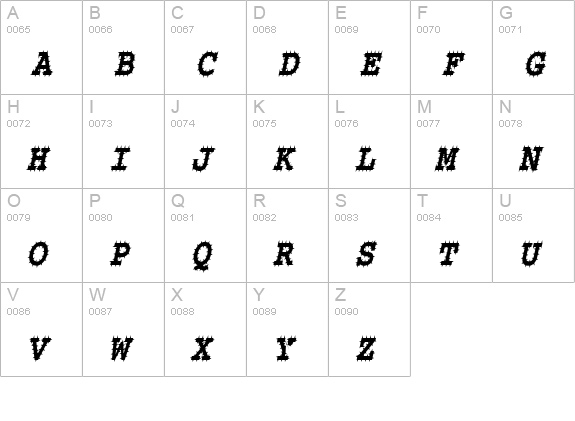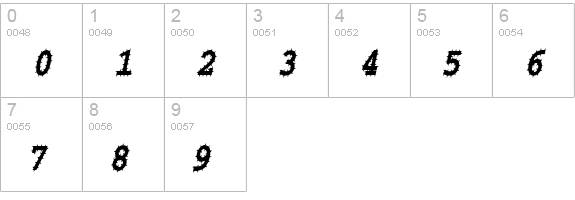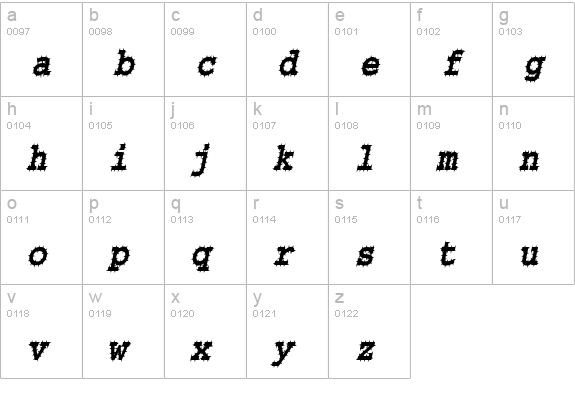
ChiselSpikedCondensed Italic Font Details
ChiselSpikedCondensed Italic is a distinctive, italic variant in the ChiselSpikedCondensed typeface family \xE2\x80\x94 well suited to design and typography projects.
ChiselSpikedCondensed Italic is a striking and unique font that combines the sharp edges of a chisel with a modern, condensed style. Its bold and edgy design makes it perfect for creating eye-catching headlines and titles that demand attention. The spiked details add a touch of drama and flair to any design project. This font is available for free download at FontsMarket.com, making it easily accessible for all designers looking to add a touch of boldness to their work. Whether you're working on a poster, logo, or website design, ChiselSpikedCondensed Italic is sure to make a bold statement and leave a lasting impression on your audience.